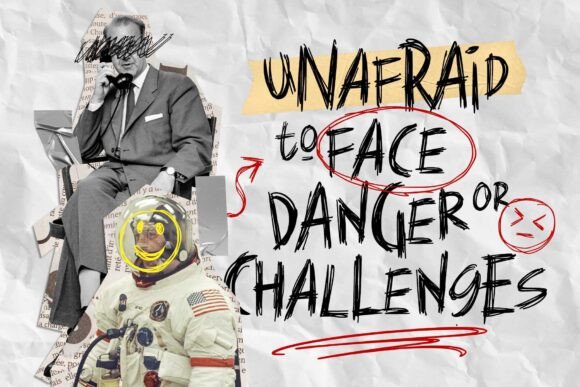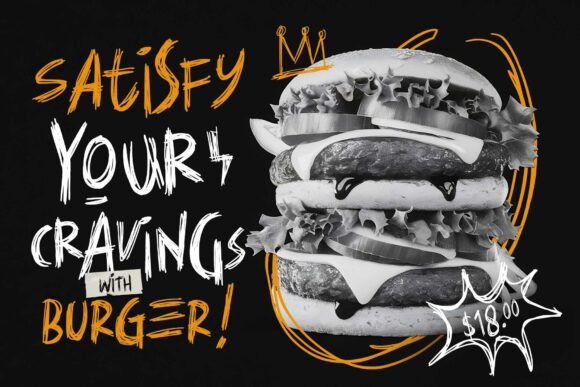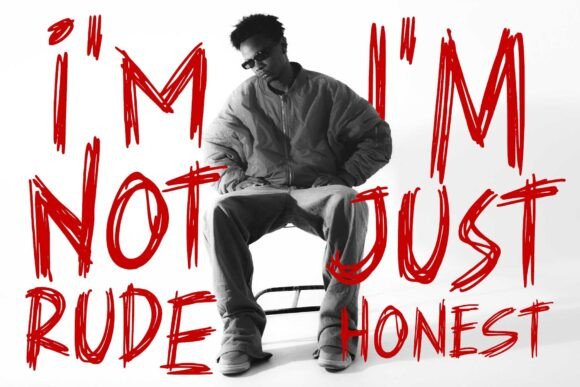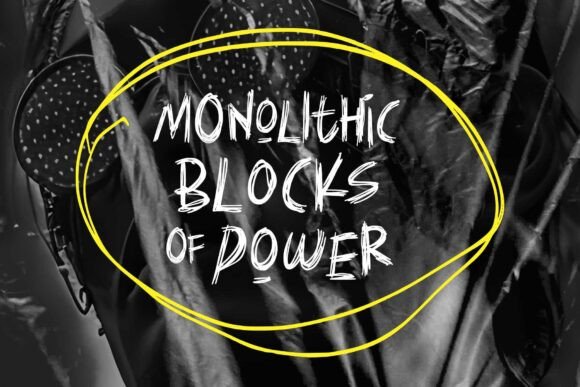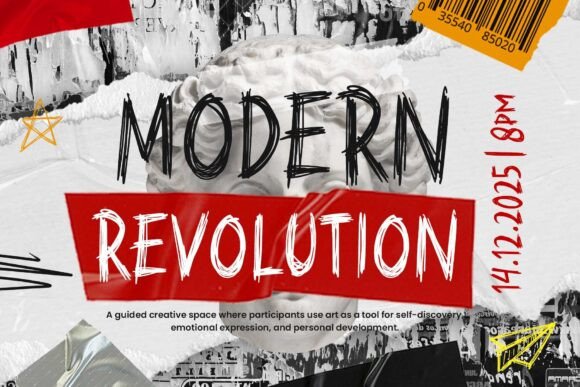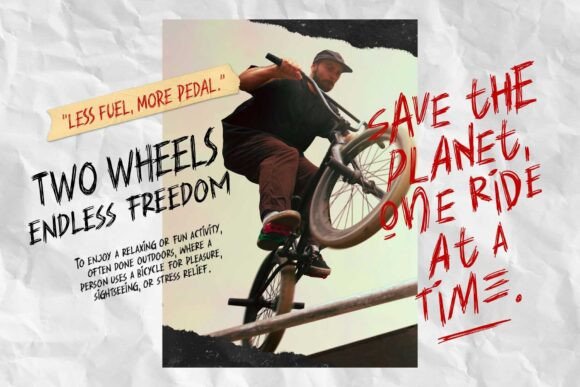
Unleash Your Inner Rebel with Against Madness Font
Have you ever stared at a blank canvas, trying to capture the perfect blend of emotions and ideas? For designers, those moments of creative fervor can be the most exhilarating – and the most daunting. It’s in these moments that the right font can make all the difference, speaking directly to the soul and igniting a spark that propels your work forward.
Enter Against Madness Font, a bold, hand-drawn typeface that embodies the raw energy of creative expression. With its expressive strokes and unique character set, Against Madness Font is the perfect companion for designers who crave a dynamic, artistic flair that sets their work apart from the crowd.
Whether you’re crafting bold posters, edgy branding, or eye-catching social media graphics, Against Madness Font is the ultimate tool for designers who refuse to blend in. Its rebellious spirit and versatility make it an invaluable addition to any creative arsenal.
Key Features of Against Madness Font
- Unique Characteristics: The font features a unique, distressed design with a mix of bold and elegant elements, making it perfect for creating eye-catching headlines and titles.
- Font Style: Against Madness Font is a display font, ideal for use in advertising, packaging, and other design projects where a bold, attention-grabbing font is needed.
Against Madness Font Review
Against Madness Font is a unique and eye-catching font that can add an extra layer of depth to your designs. ✨ One of the things I like about this font is its versatility – it can be used for both modern and vintage projects, depending on the style you’re going for. The font’s bold and expressive nature makes it perfect for headlines and titles, while its subtle nuances make it suitable for body text as well.
Here are some of the things that work well in Against Madness Font:
- ✨ Unique and expressive design
- ✨ Suitable for a wide range of projects and styles
- ✨ Bold and attention-grabbing headlines
- ✨ Subtle nuances for body text
- ⚠️ Limited font sizes – some letters may become distorted at very small or very large sizes
- ⚠️ Not suitable for projects that require a high level of readability
Overall, I think Against Madness Font is a great addition to any designer’s toolkit. While it may not be perfect for every project, its unique design and versatility make it a great choice for those looking to add a little extra flair to their work.
Tips for Getting the Most Out of Against Madness Font
Use Against Madness Font for headings, titles, and emphasis.
Combine Against Madness Font with other fonts for a unique and eye-catching design.
Experiment with different font sizes and styles to create a dramatic effect.
Against Madness Font is ideal for:
Graphic design projects
Print materials (business cards, brochures, etc.)
Online content (blog posts, social media, etc.)
Q: Does the Against Madness font support advanced typography features?
Yes, the Against Madness font includes advanced OpenType features such as ligatures, swashes, and contextual alternates. These features can be accessed in design applications that support OpenType, such as Adobe Creative Cloud or Sketch.